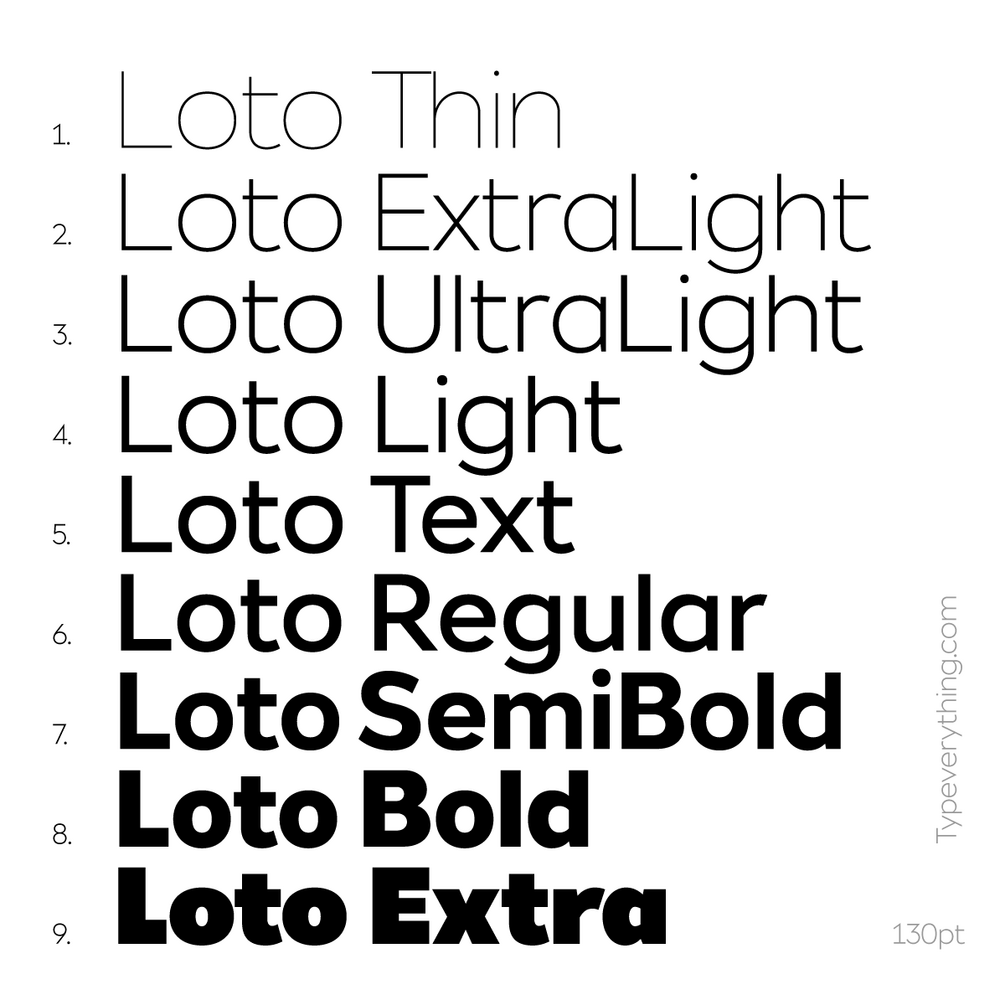
Loto Sans
Loto is a new geometric sans with super friendly features. This  typeface was designed as an alternative to the usual suspects and works great for logotypes, brand materials and websites. Available in 9 weights. The variable file is included in the full family pack.
Designed by Andrei Robu & Alexandru Darie.